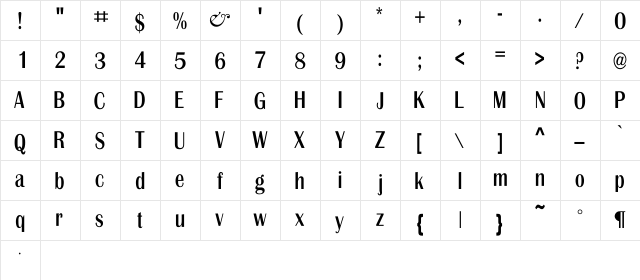
Esoterik Regular
| Foundry | Laser Printing Solutions |
| Designer | Kenneth Hirst |
Design Context for Esoterik Typeface
Esoterik offers clean, dependable letterforms without strong stylistic allegiance, making it a practical choice for designers who need flexibility.